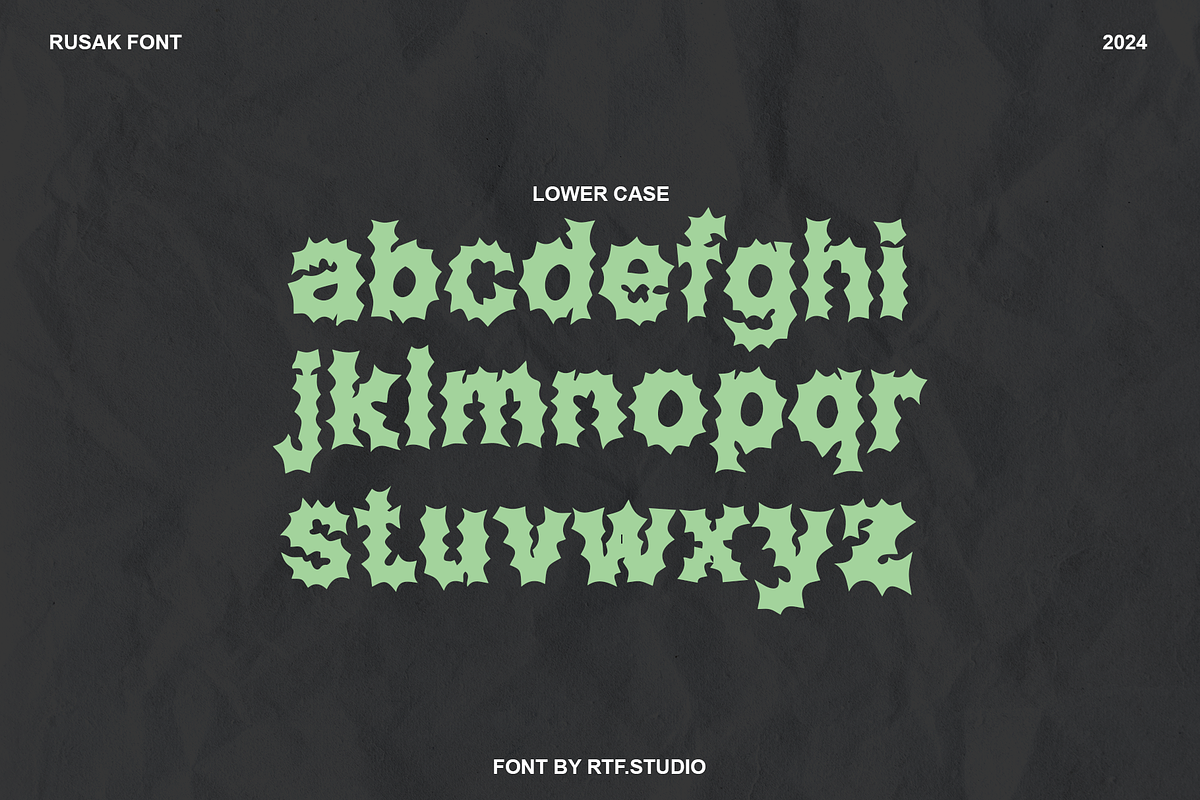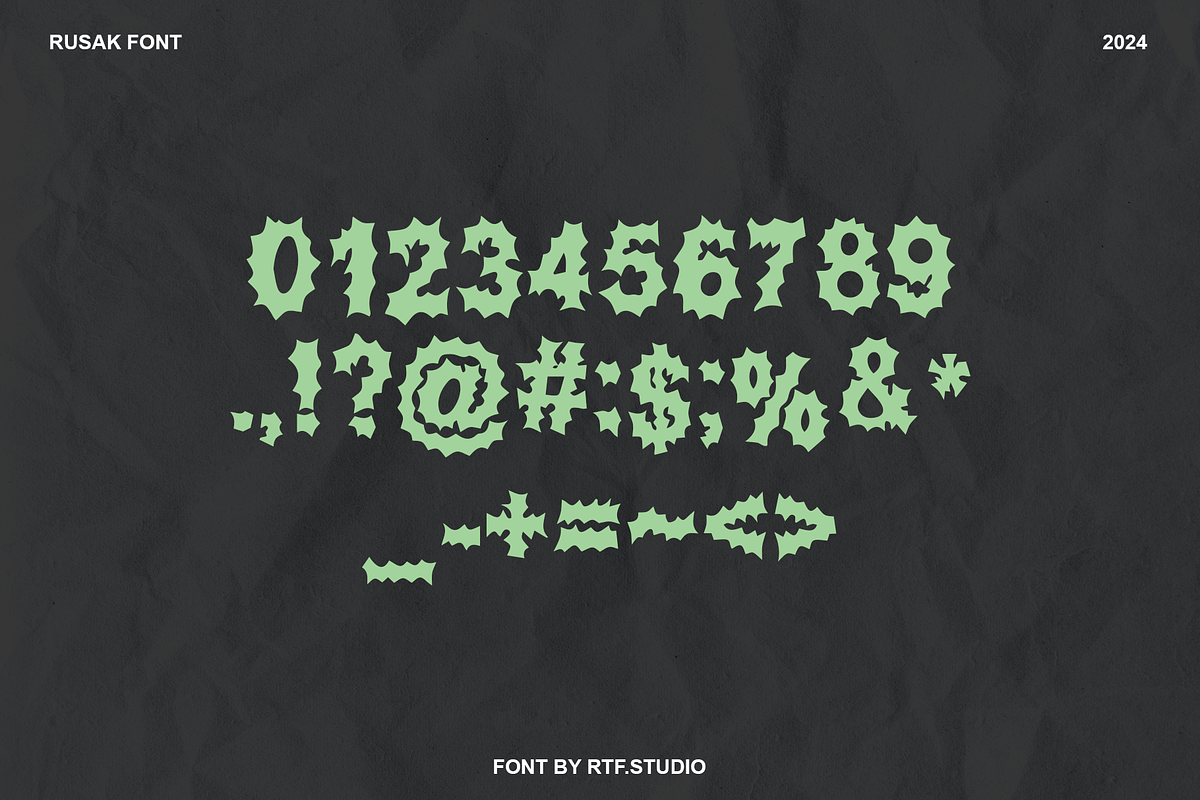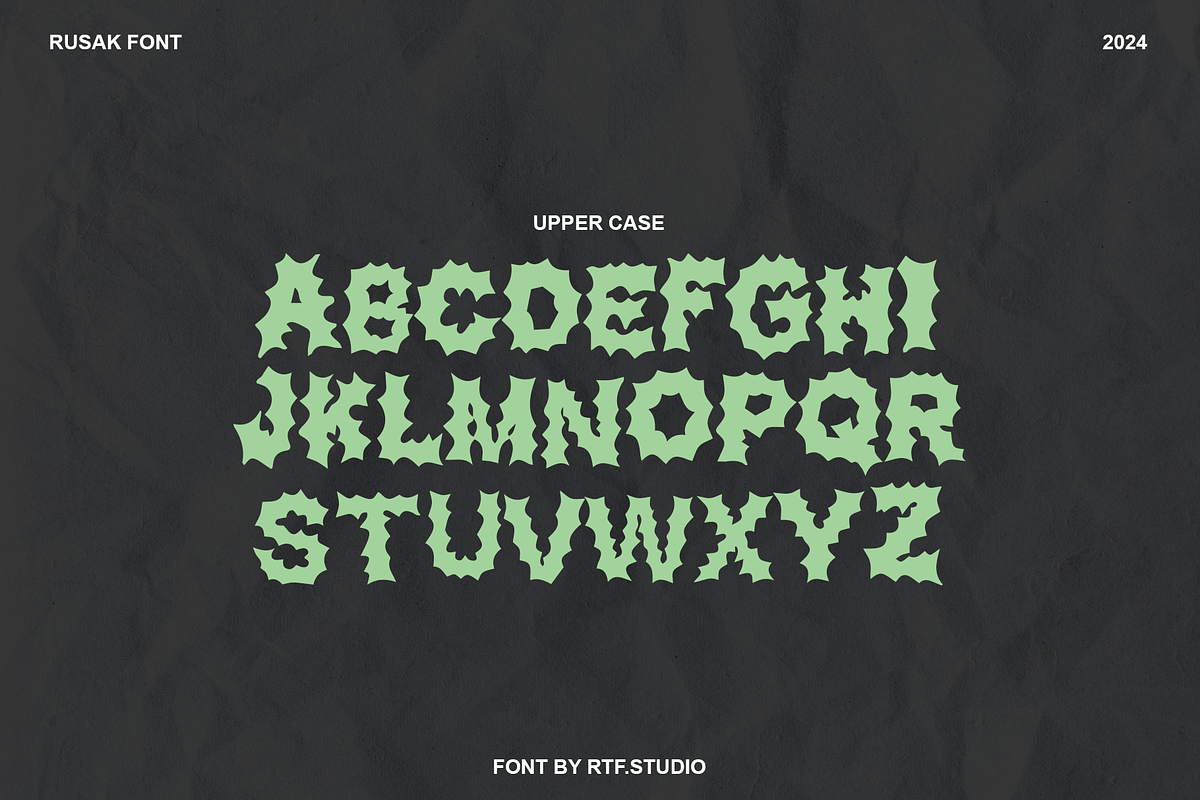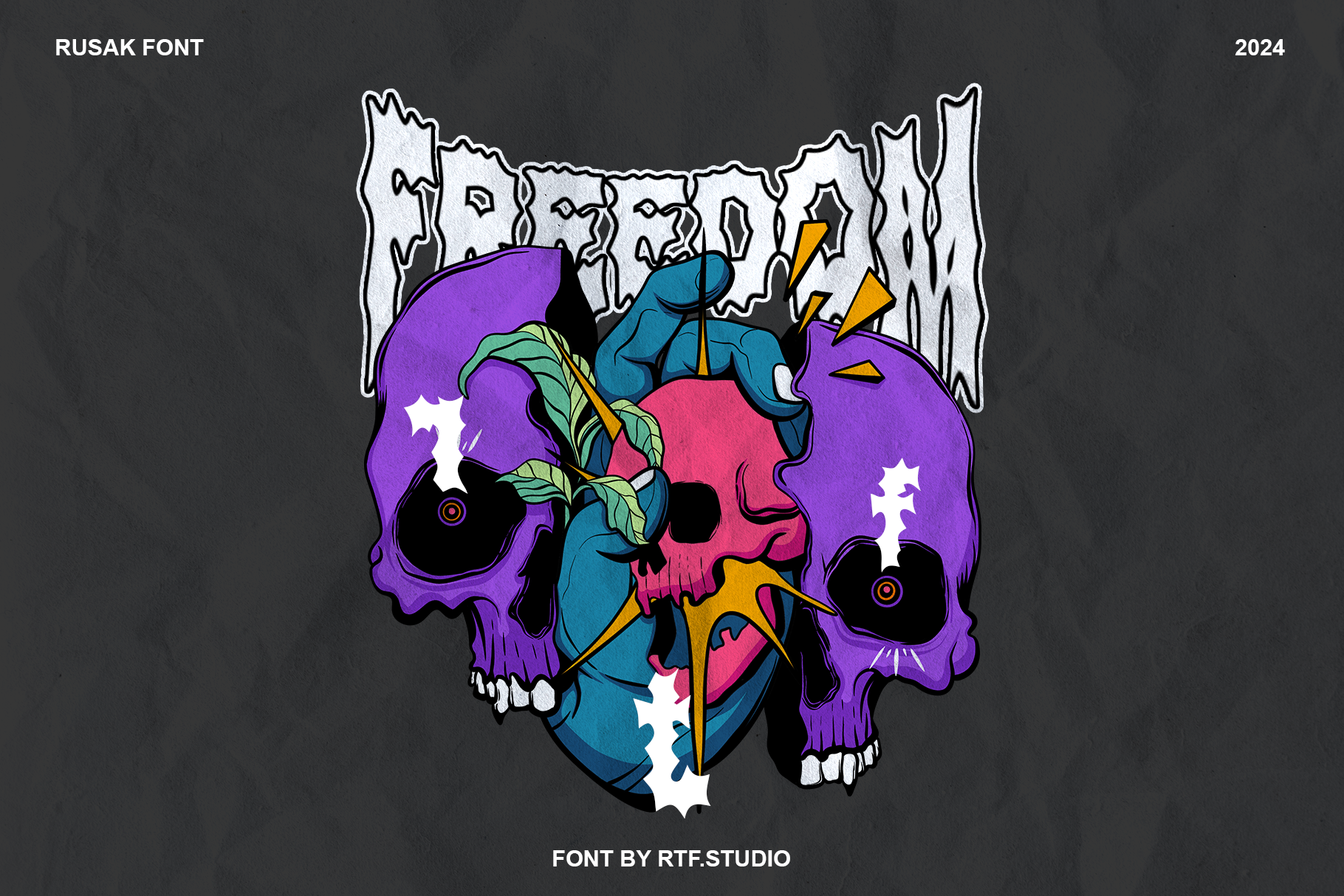
RUSAK - FONT DISPLAY
Rusak - Display Font with a Display character modern, and Jagged concept. Use this display font to add a special cute touch to any design idea you can think of!
Great for use to :
- Logo,
- Sticker,
- Packaging design,
- Cricut Project,
- headlines,
- brand identity,
- t-shirt
- apparel industry,
- posters,
- magazines,
- books,
- YouTube,
- Instagram,
- websites or
- your creative design projects.